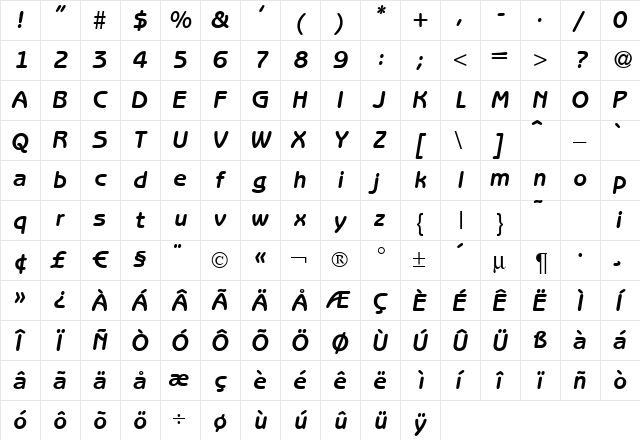
B691-Sans BoldItalic Font Preview
Design Context for B691-Sans Typeface
B691-Sans takes a measured approach to typography — its balanced proportions and neutral character make it a reliable workhorse for both digital and print work. The dynamic lean of this cut emphasises speed and emphasis in any layout. Its bold stroke weight gives it real presence on the page.
Pro Tip: Try B691-Sans for annotation and caption copy alongside an upright companion — the contrast in angle creates a dynamic but ordered typographic system.